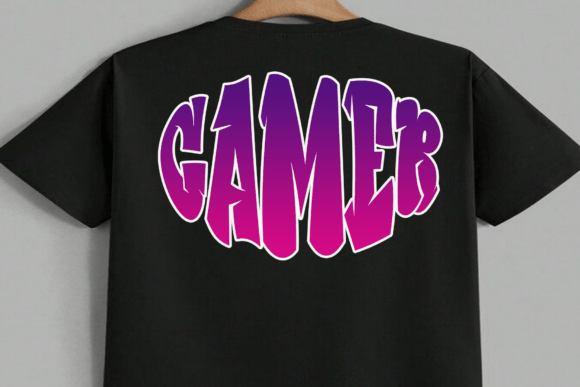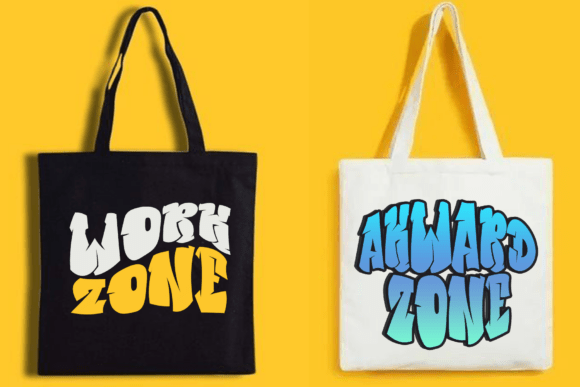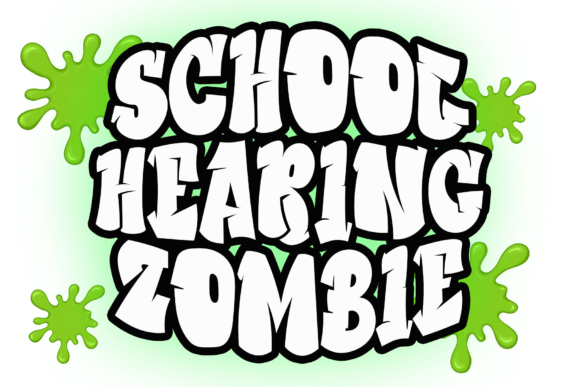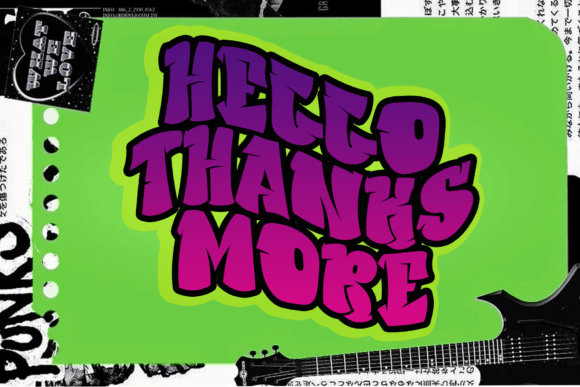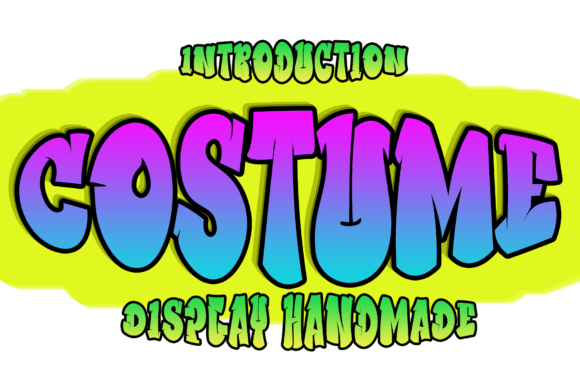
Unleash Your Creativity with Costume Font: The Ultimate Display Font for Bold Designs
Are you tired of using the same old fonts for your designs? Do you want to add a touch of playfulness and energy to your titles, signage, and graphics? Look no further than Costume Font, a high-energy display font that’s sure to make your designs stand out from the crowd. With its exaggerated letterforms, thick outlines, and bold handmade aesthetic, Costume Font is the perfect choice for designers and crafters who want to add a little excitement to their work.
The Unique Features of Costume Font
Costume Font is a one-of-a-kind display font that’s designed to dominate the composition and convey a sense of loud, playful attitude. Each glyph features heavy weighting, irregular shaping, and vibrant visual impact, making it perfect for titles, signage, merchandise, party-themed graphics, or anything requiring an outsized personality. The font’s gradient coloring, as shown in the preview, amplifies its comic-style volume, but the core structure remains strong enough to perform in flat or monochrome settings.
The Benefits of Using Costume Font
So why choose Costume Font for your designs? Here are just a few benefits of using this versatile typographic toolset:
- Adds energy and excitement: Costume Font is designed to make a statement, adding a touch of playfulness and energy to your designs.
- Perfect for bold designs: With its thick outlines and heavy weighting, Costume Font is perfect for creating bold, eye-catching designs that demand attention.
- Versatile: Costume Font can be used for a wide range of design projects, from titles and signage to merchandise and party-themed graphics.
- Easy to use: Despite its bold and playful aesthetic, Costume Font is easy to use and can be incorporated into your designs with ease.
Who Can Benefit from Using Costume Font?
Costume Font is perfect for a wide range of designers and crafters, including:
- Graphic designers: Whether you’re working on a branding project or creating social media graphics, Costume Font is a great choice for adding a touch of energy and excitement to your designs.
- Crafters: If you’re creating handmade products, such as party decorations or customized merchandise, Costume Font is a great way to add a personal touch to your designs.
- Sign makers: With its bold and eye-catching aesthetic, Costume Font is perfect for creating attention-grabbing signs and displays.
Tips for Using Costume Font Effectively
Here are a few tips for using Costume Font effectively in your designs:
- Use it sparingly: While Costume Font is designed to make a statement, it can be overwhelming if used too much. Use it sparingly to add emphasis and create visual interest.
- Experiment with colors: While the gradient coloring shown in the preview is a great way to add visual impact, don’t be afraid to experiment with different colors and combinations to find the perfect look for your design.
- Pair it with other fonts: Costume Font can be paired with other fonts to create a unique and interesting contrast. Try pairing it with a clean, sans-serif font for a bold and modern look.
Costume Font is a powerful and versatile display font that’s perfect for designers and crafters who want to add a touch of energy and excitement to their designs. With its bold handmade aesthetic, thick outlines, and vibrant visual impact, Costume Font is sure to make your designs stand out from the crowd. Whether you’re working on a graphic design project, creating handmade products, or making signs and displays, Costume Font is a great choice for adding a little personality and flair to your work.